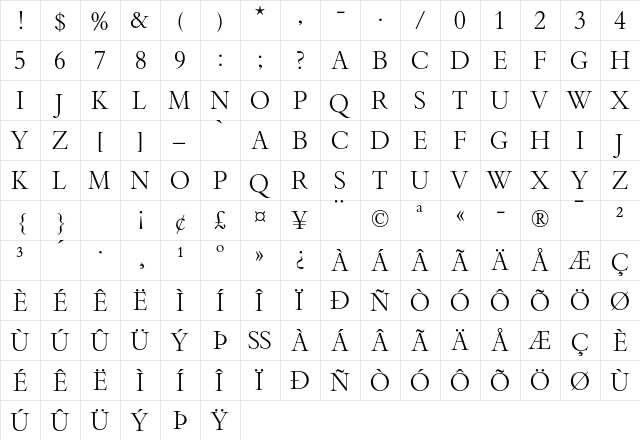
Bembo Titling MT Std Regular
Design Context for Bembo Titling MT Std Typeface
Bembo Titling MT Std is a composed and adaptable typeface that performs quietly and consistently across a wide range of design contexts.
Pro Tip: Use Bembo Titling MT Std in both headline and body roles to test its range before committing to a single application.